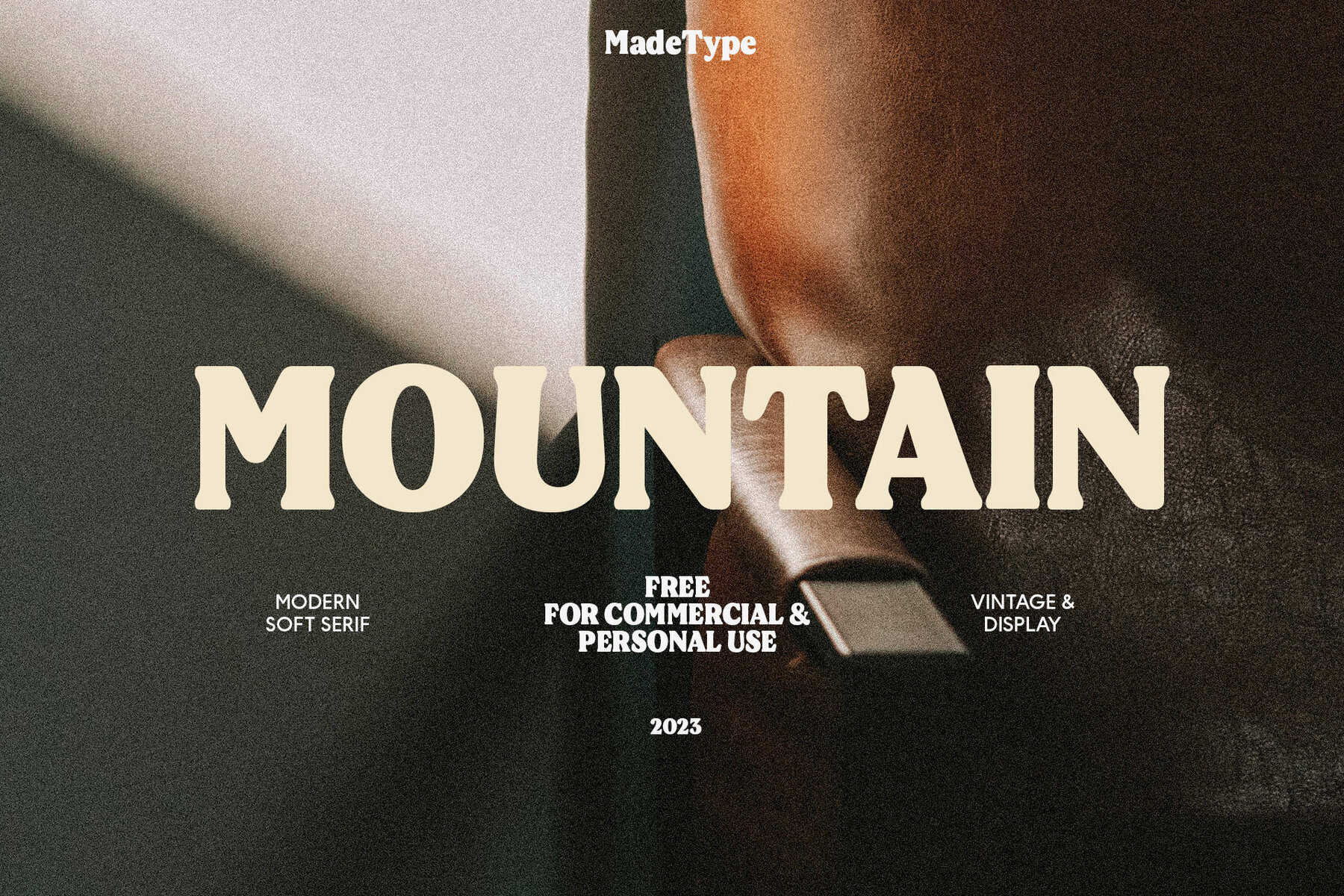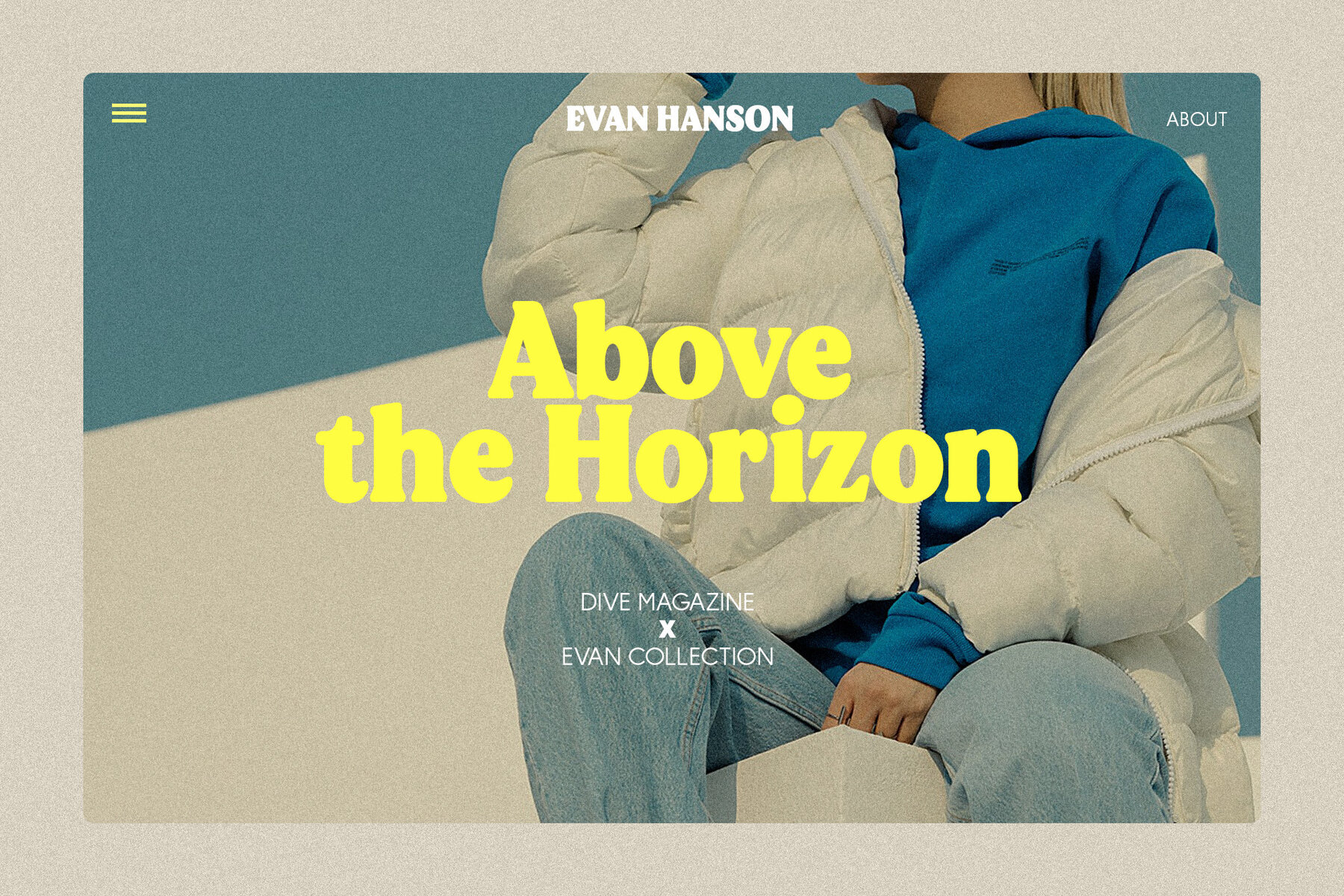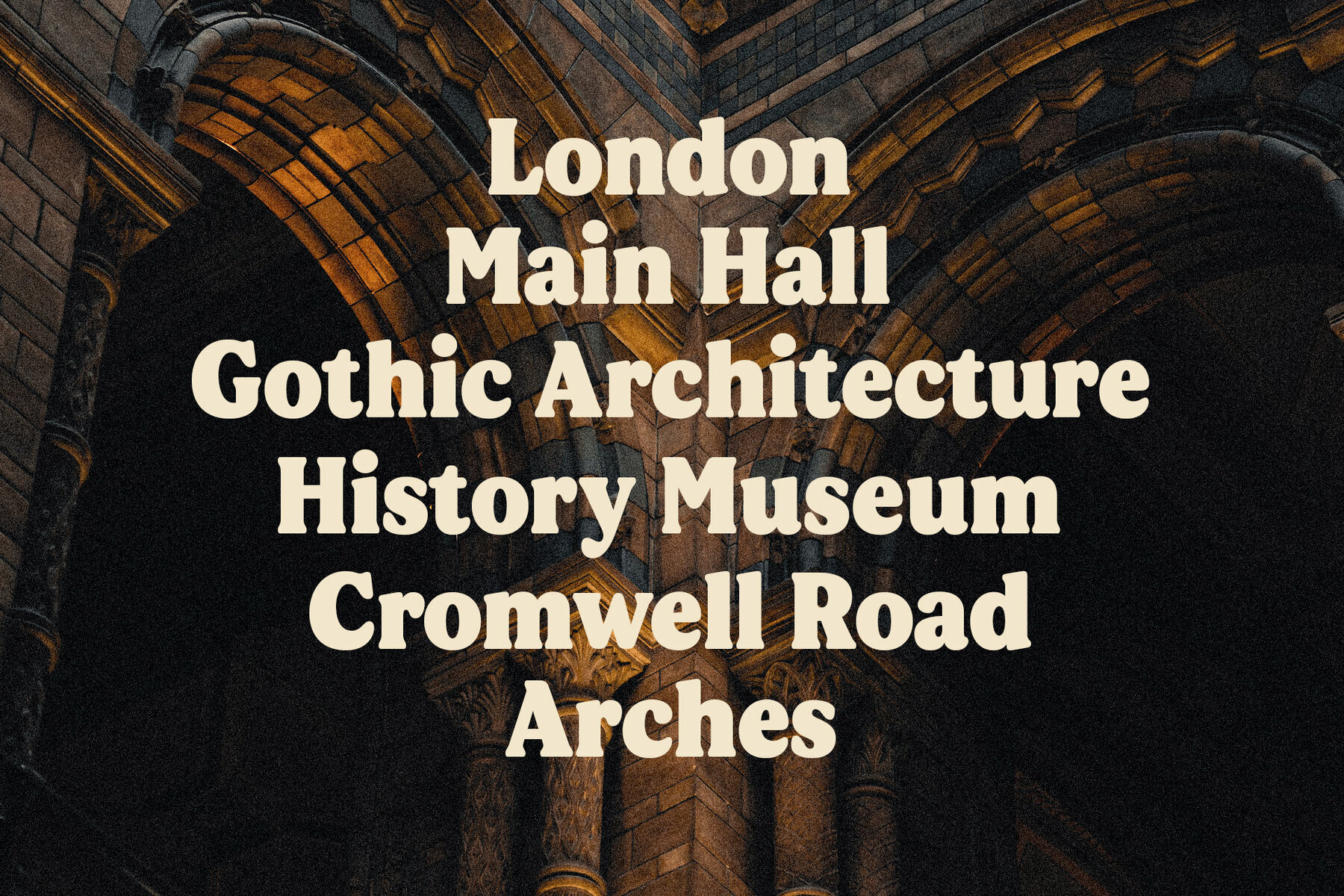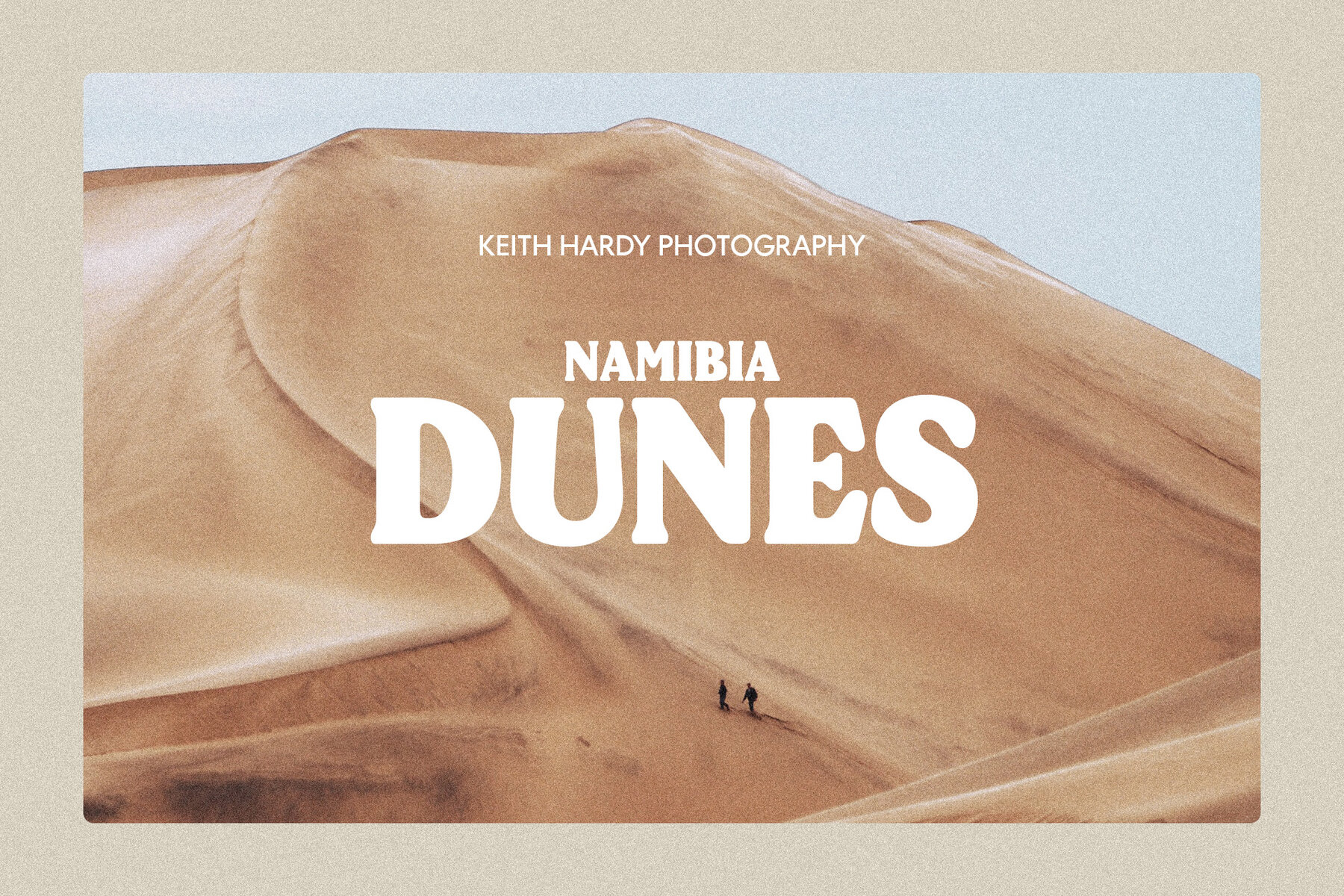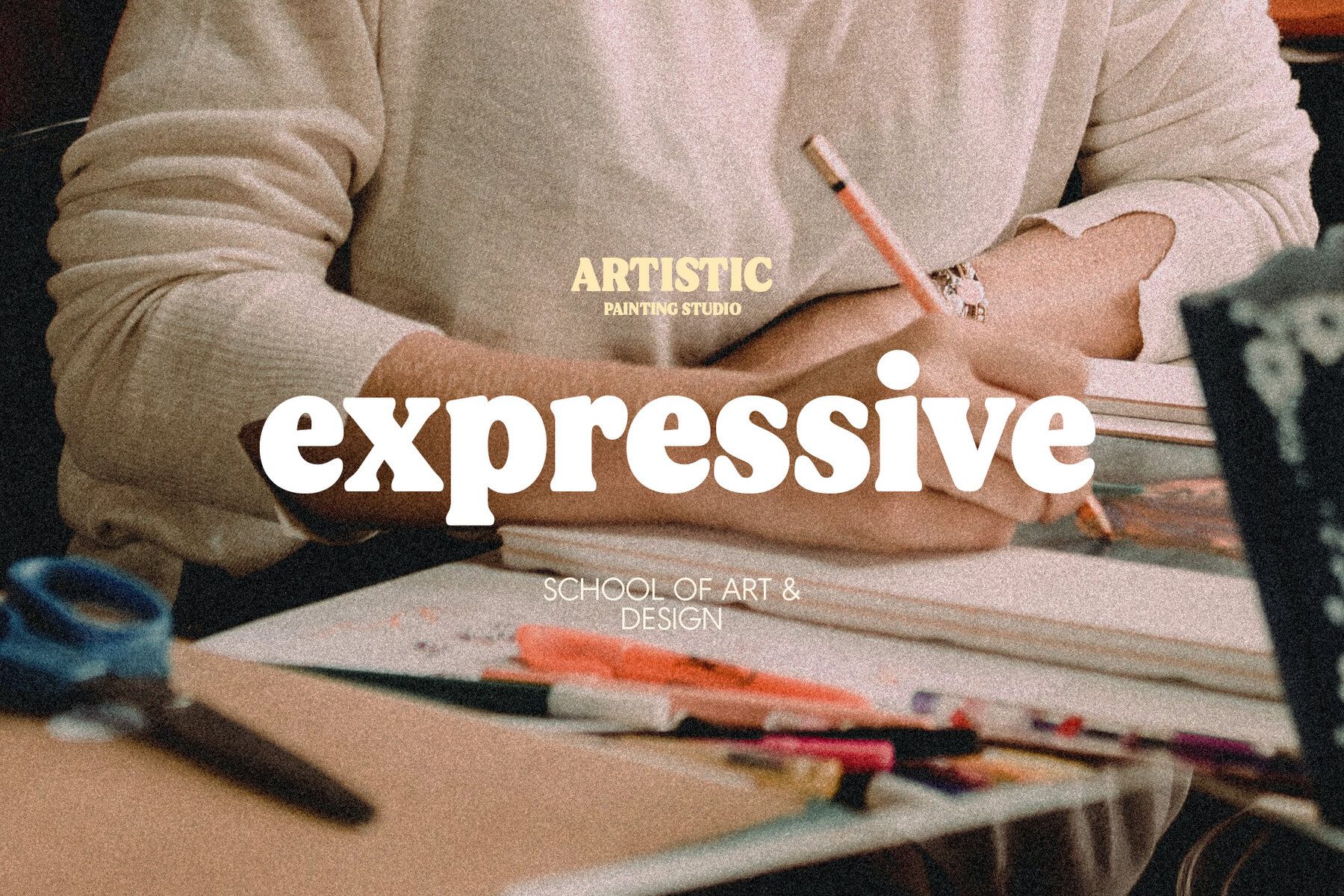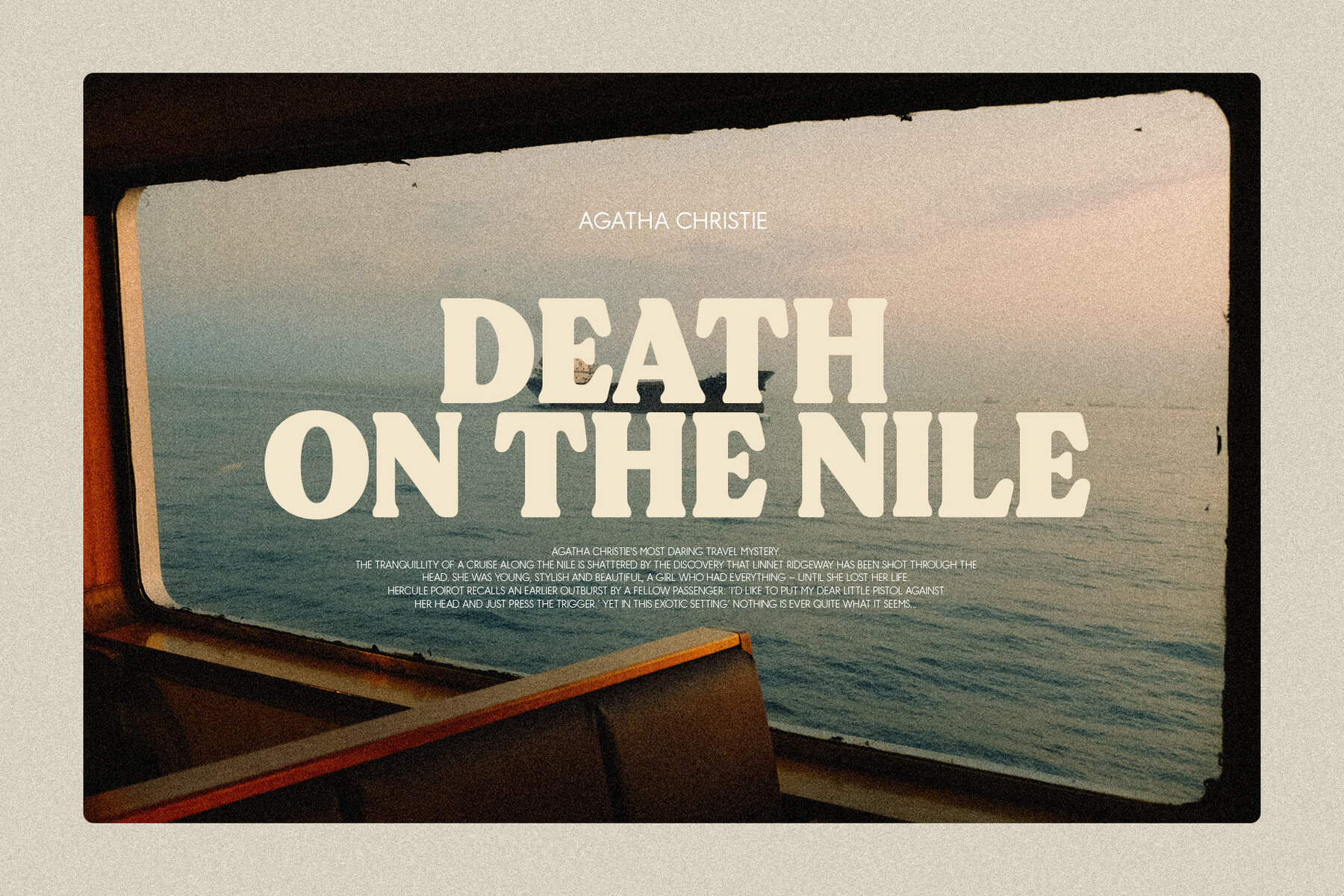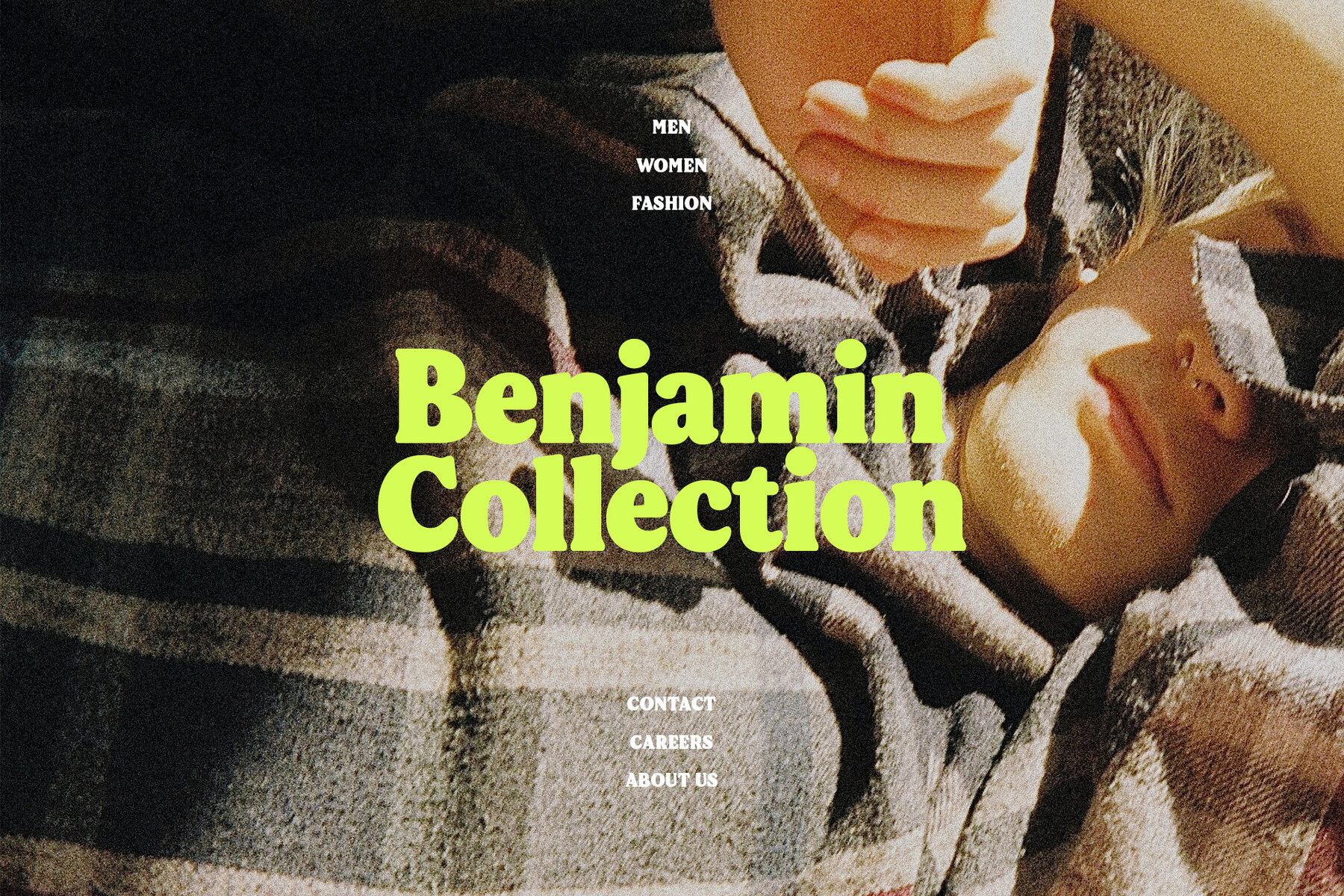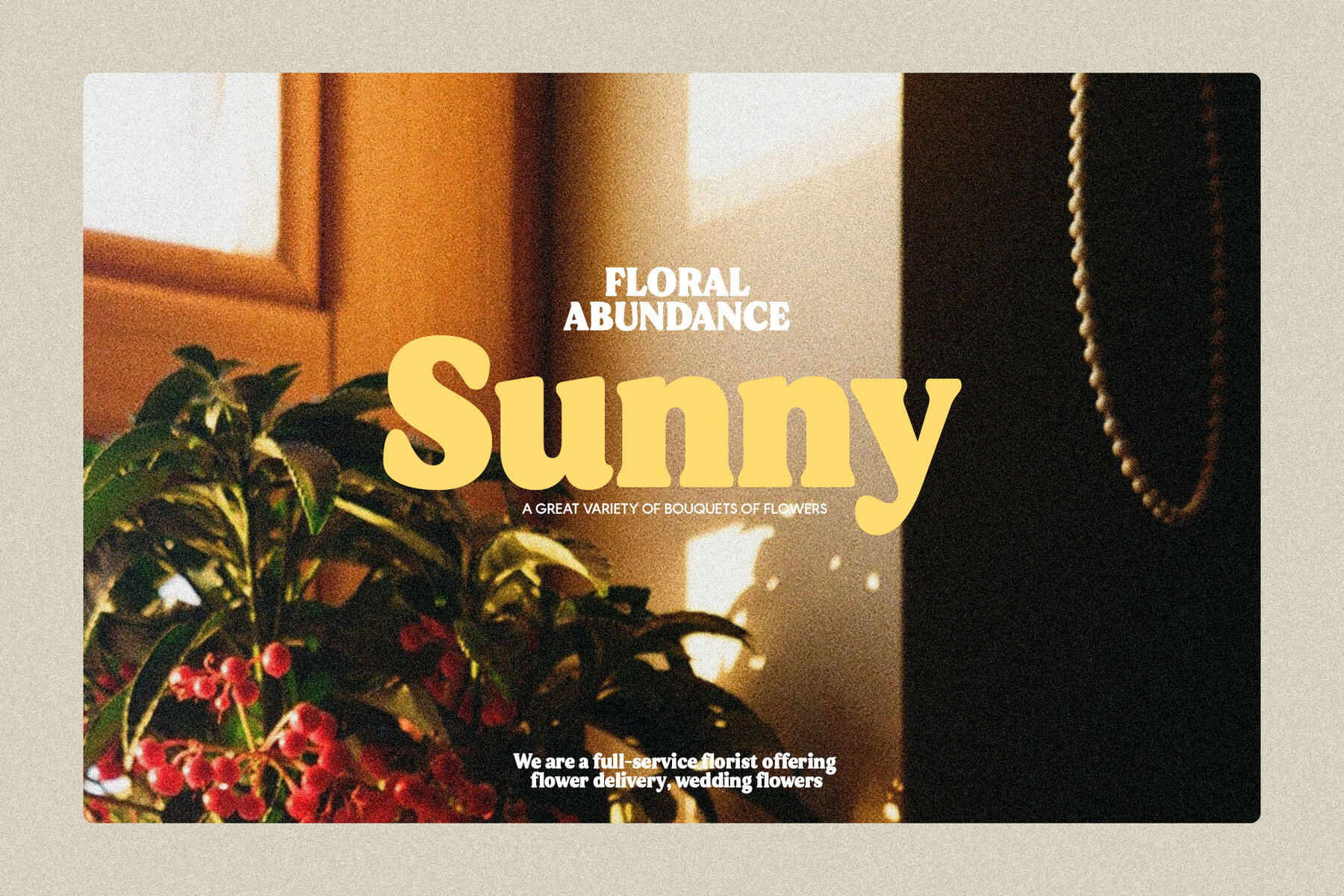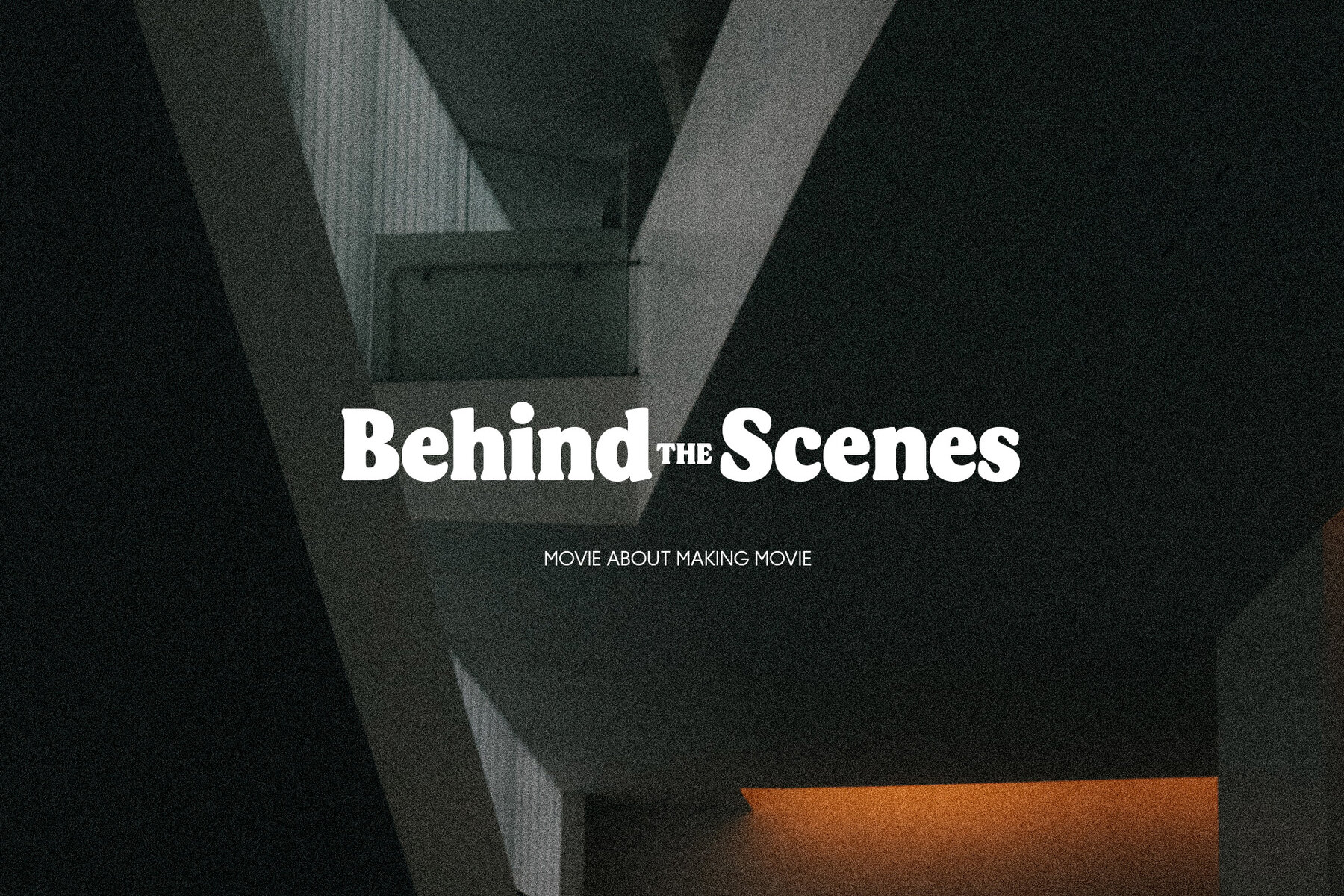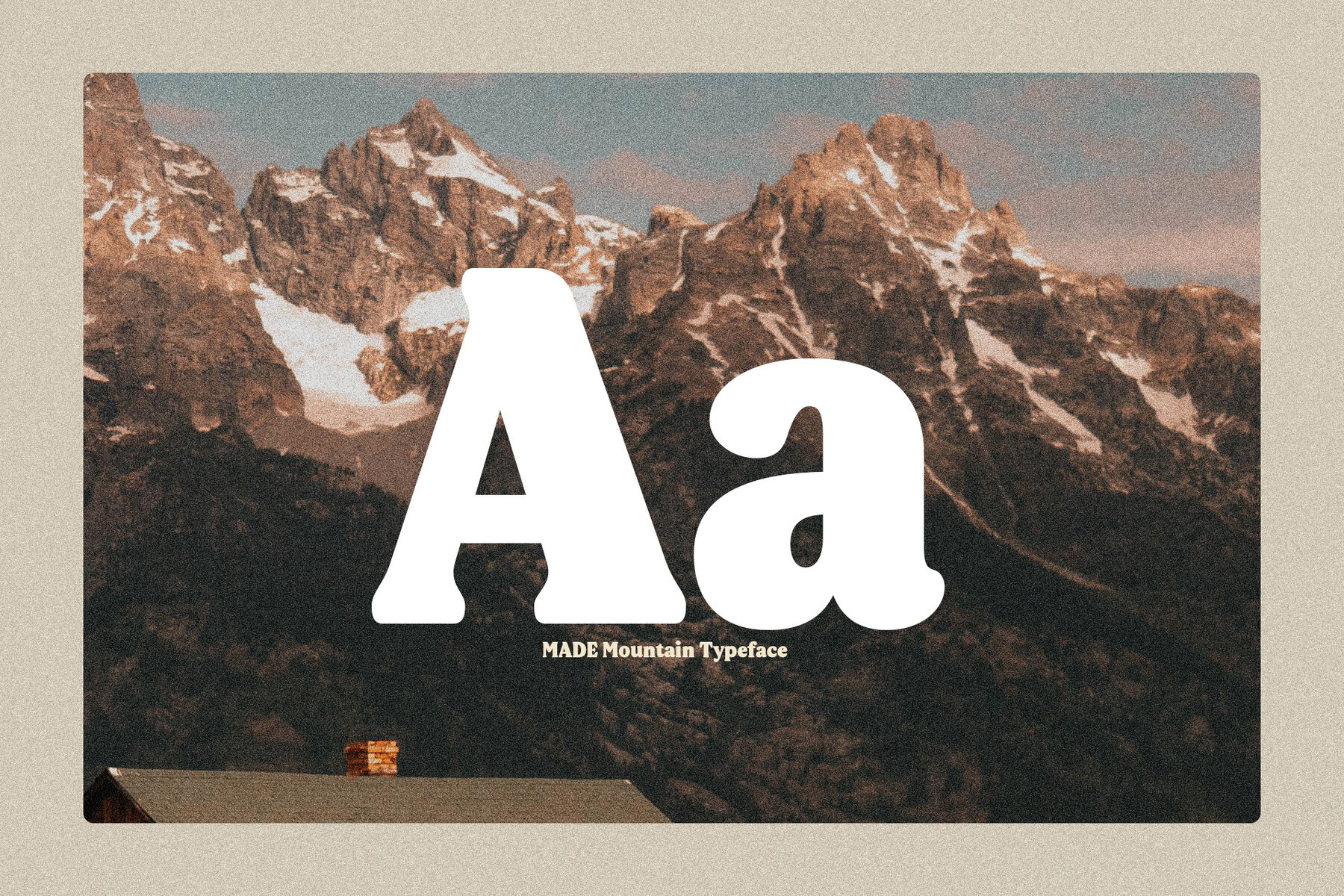
MADE Mountain Font
MADE Mountain by MadeType stands as a contemporary display typeface, combining modern aesthetics with a classic serif structure. This adaptable font captures attention with its soft, flowing curves and distinct character, making it an exquisite choice for creative and branding tasks.MADE Mountain: A Contemporary Soft Serif Typeface